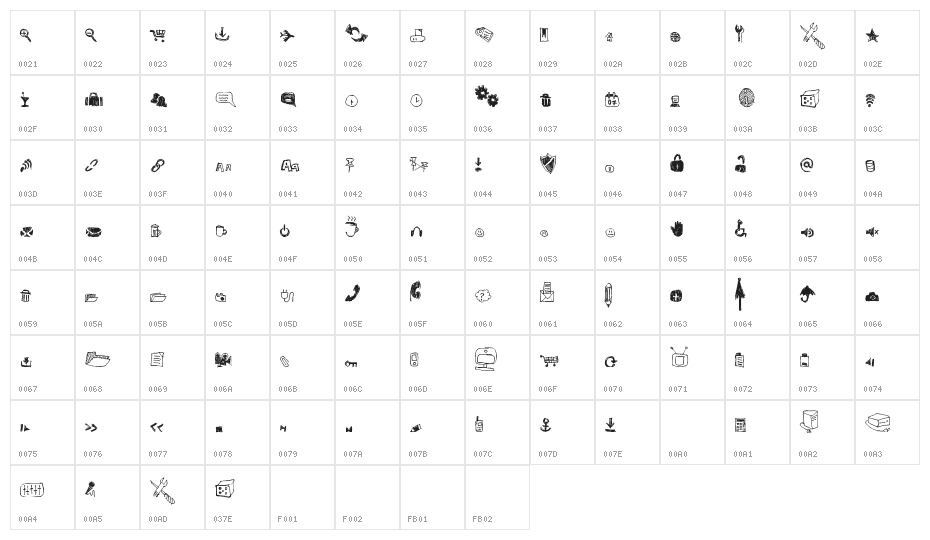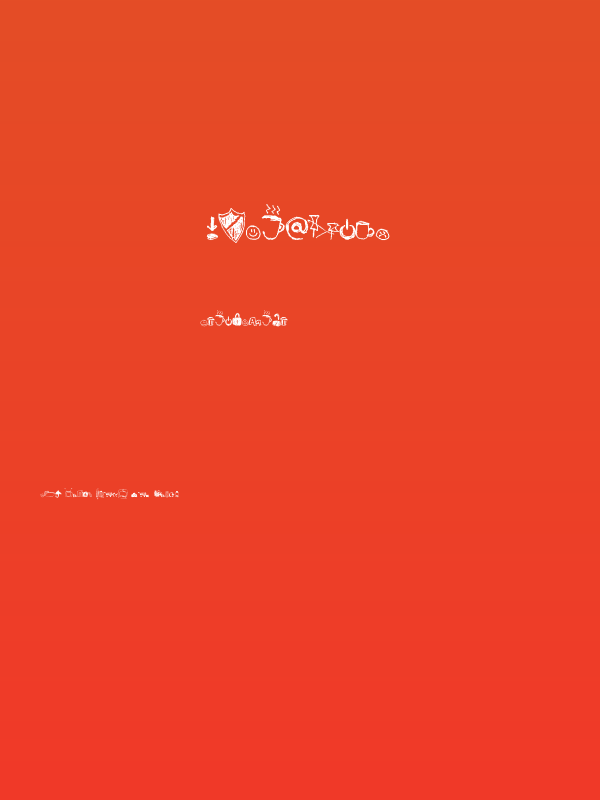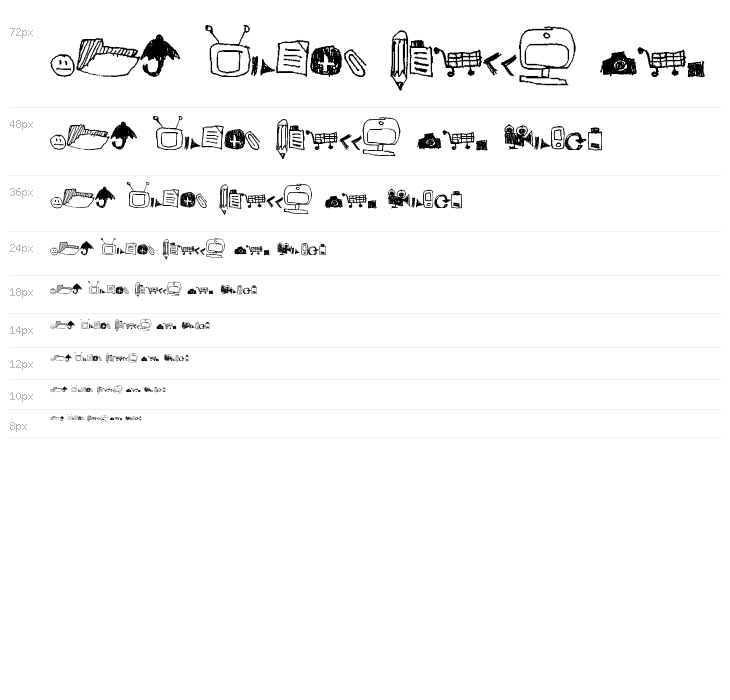
DerpIcons Font
DerpIcons Description
A playful, hand-drawn icon set with a sketchy, informal style, featuring a variety of common interface symbols and objects. The lines are uneven and organic, giving a whimsical and casual appearance.
| Overall Style | Decorative, Playful, Hand-drawn |
| Use Case | Icons, Decorative elements, Informal UI, Posters |
| Proposed Projects | Children's websites, creative portfolios, informal presentations, educational materials, playful branding. |